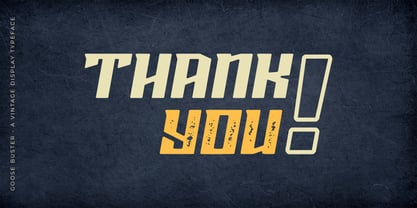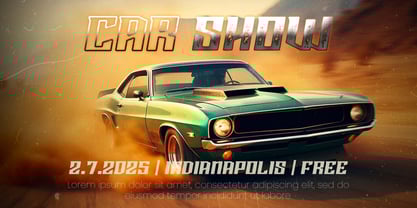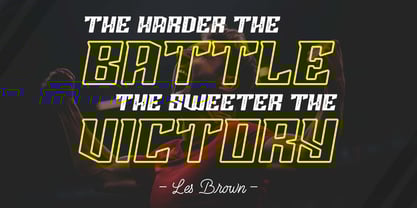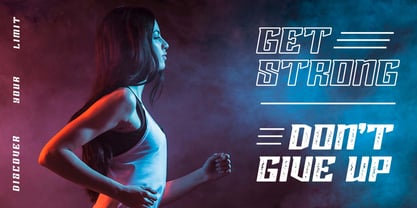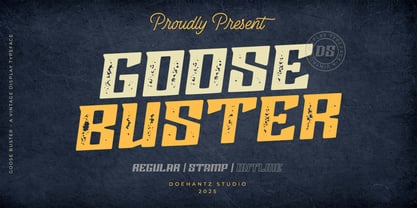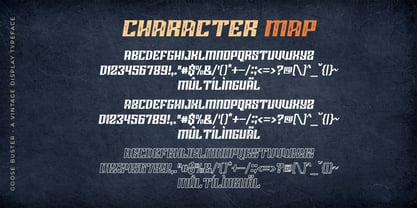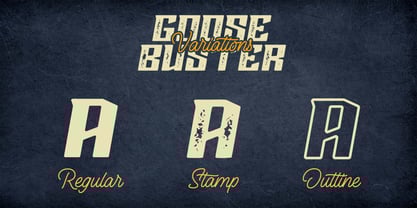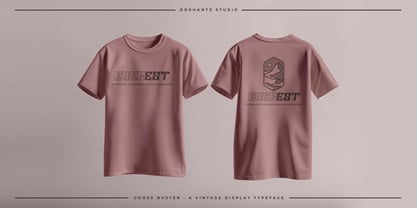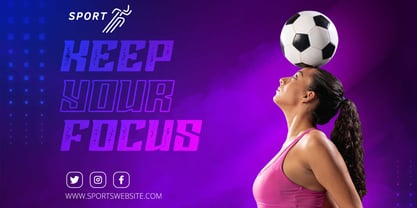
Goose Buster
por Doehantz Studio
A família de fontes Goose Buster foi desenhada por Abduhan Fikhri e publicada pela Doehantz Studio. Goose Buster contém 3 estilos e opções de pacote familiar.
Embark on an aesthetic journey with Goose Buster, a triumvirate of vintage brilliance. This display typeface parades a trio of styles - regular, stamp, and outline, each exuding its own unique charm. With its rugged yet refined look, Goose Buster ideally accents a sporty theme, infusing it with an undeniable aura of retro elegance. Every stroke of this font reflects history, making it a perfect bridge between the classic and the contemporary. Add a sense of timeless novelty to your designs with Goose Buster – the vintage powerhouse of fonts.
Designers: Abduhan Fikhri
Publicador: Doehantz Studio
Fundidoras: Doehantz Studio
Proprietário do design: Doehantz Studio